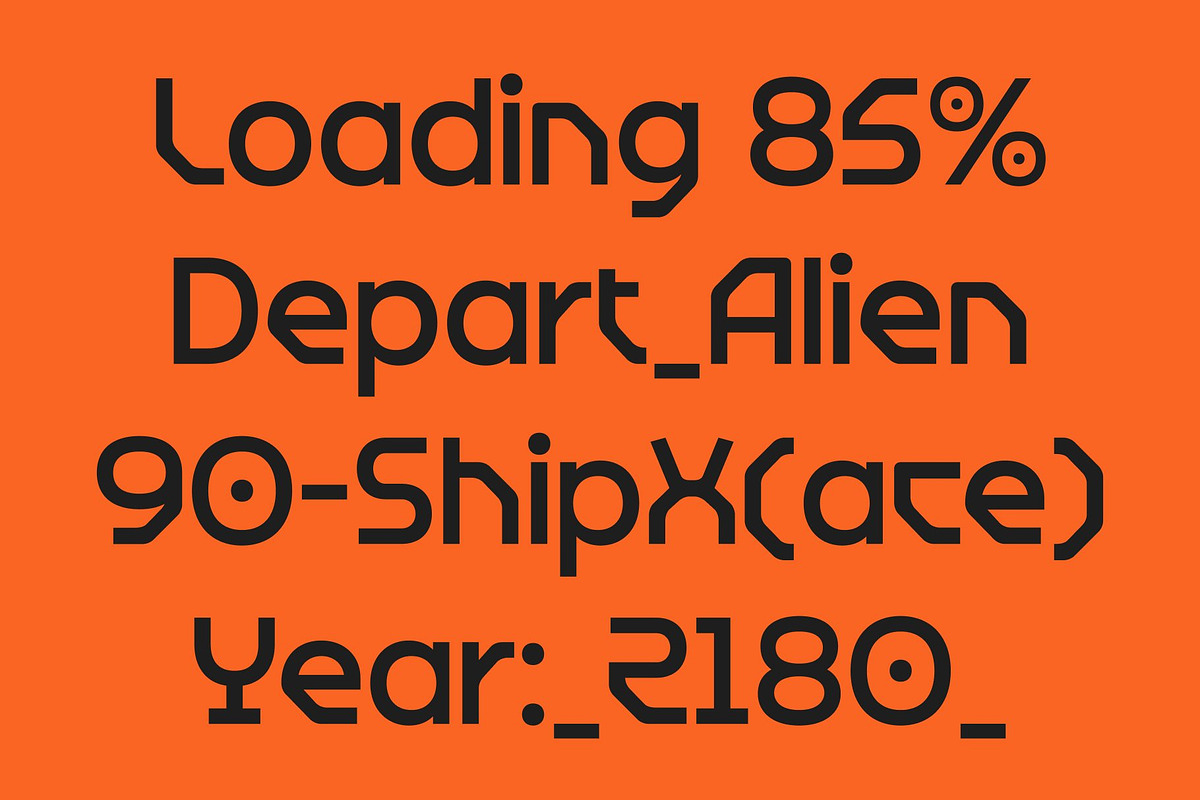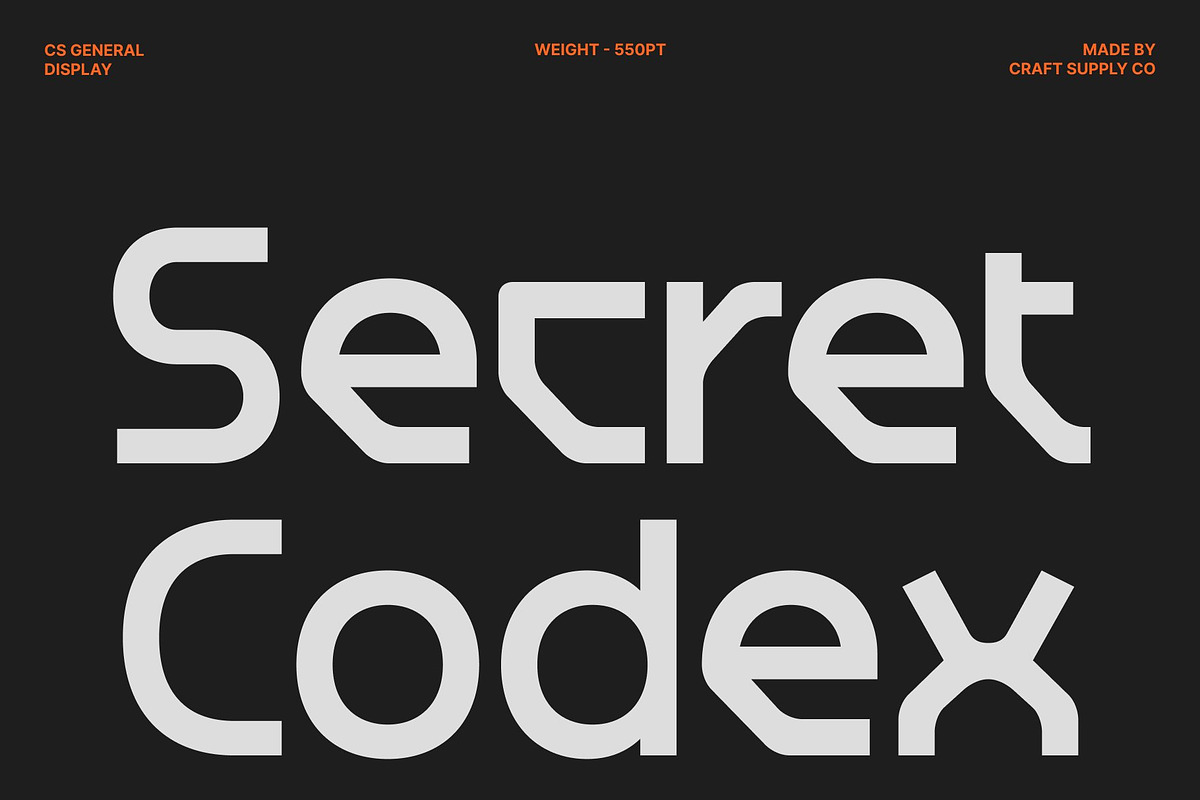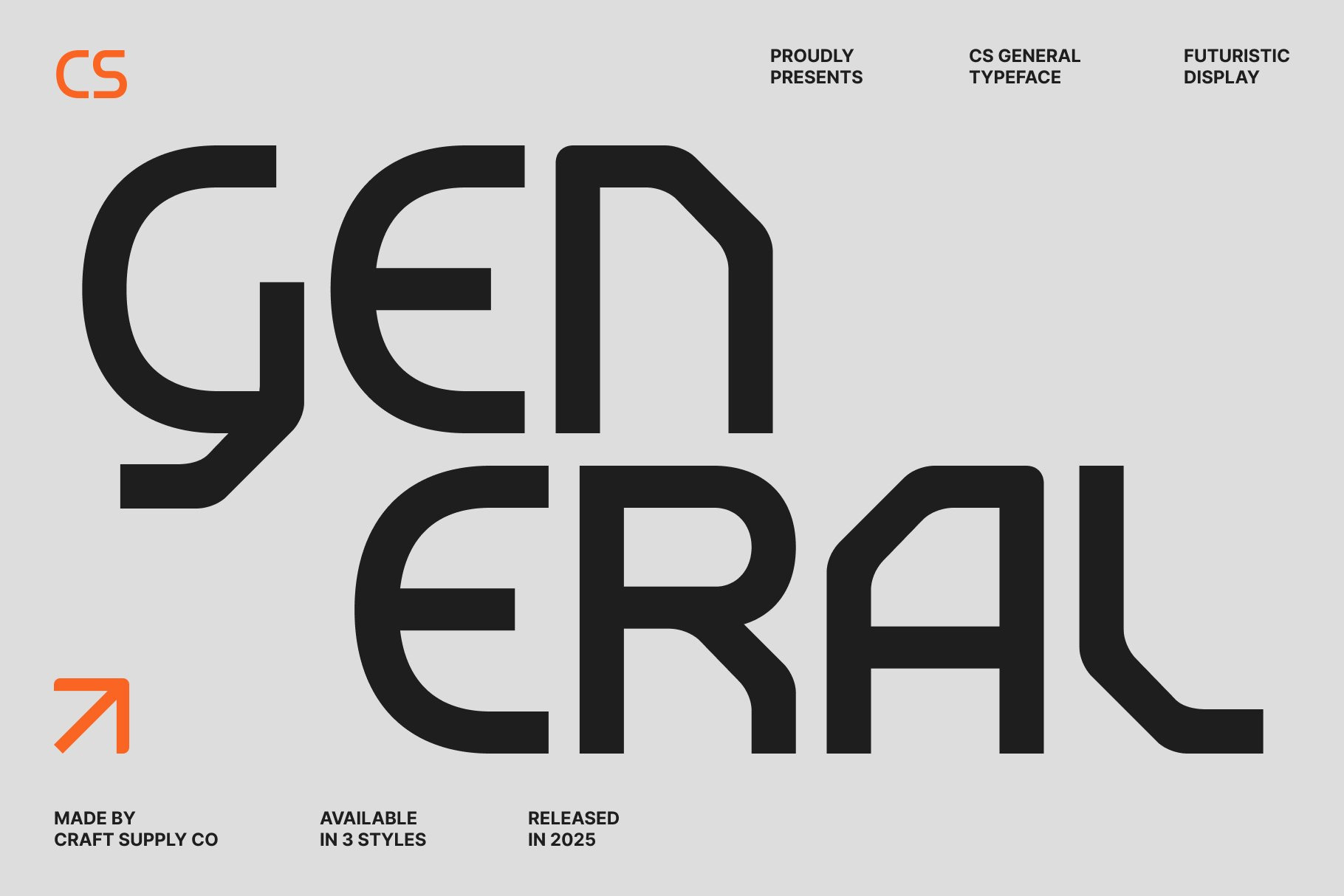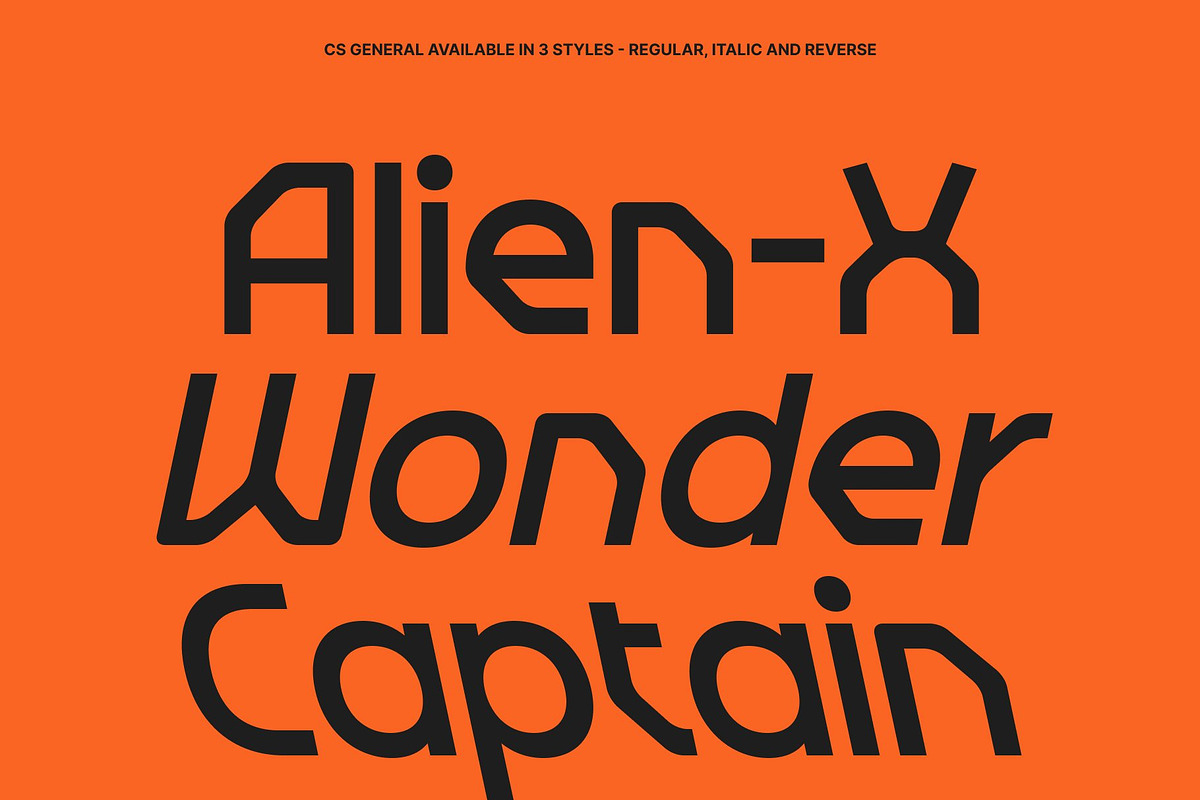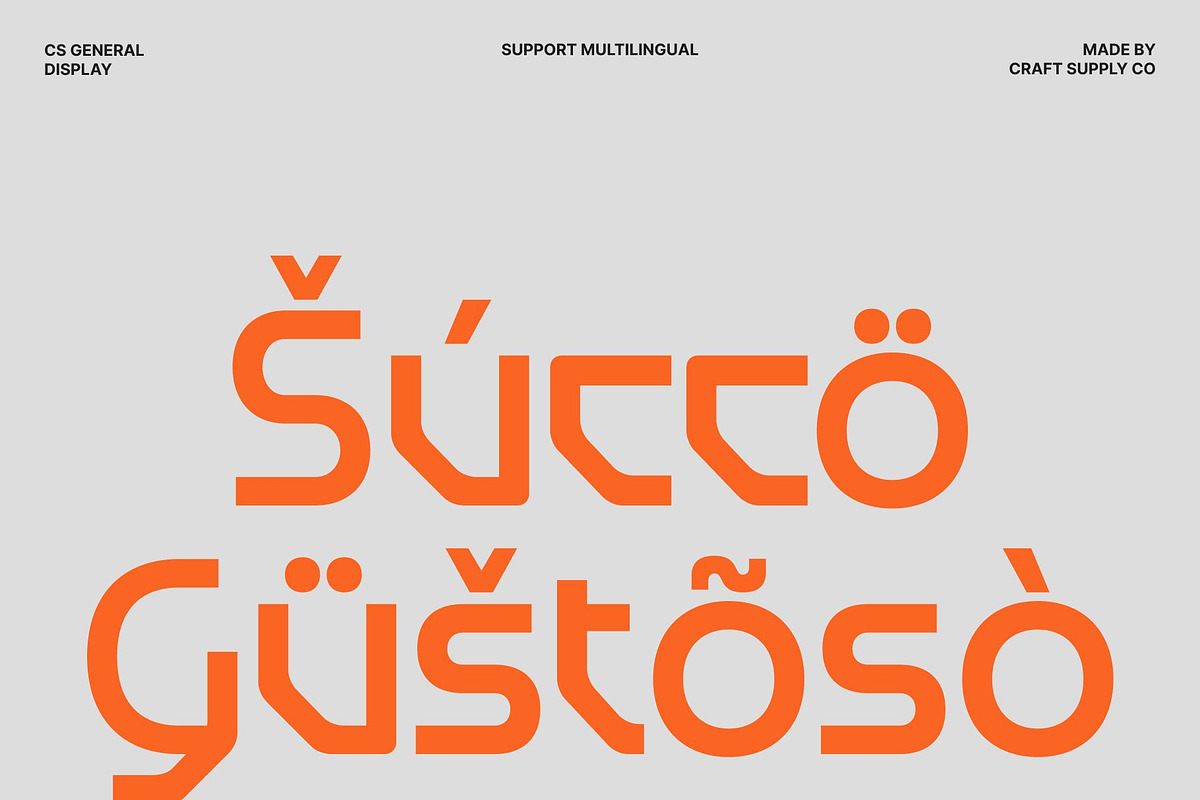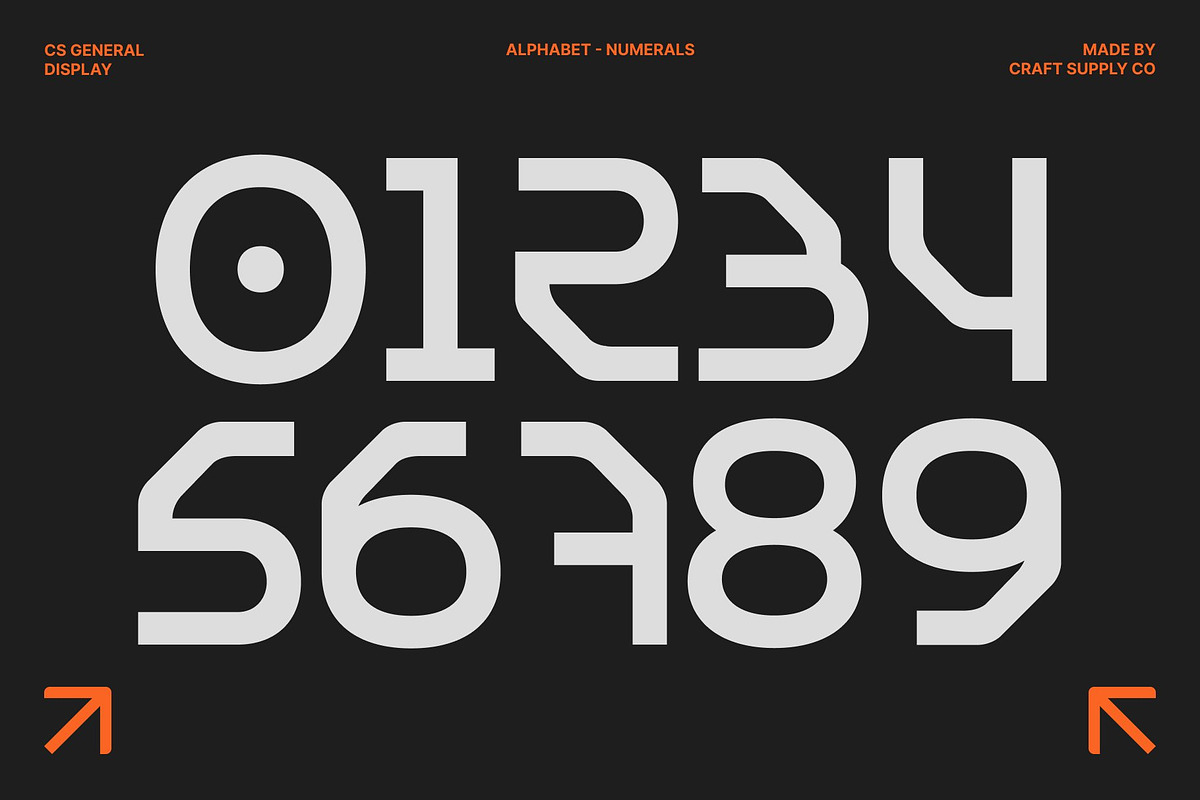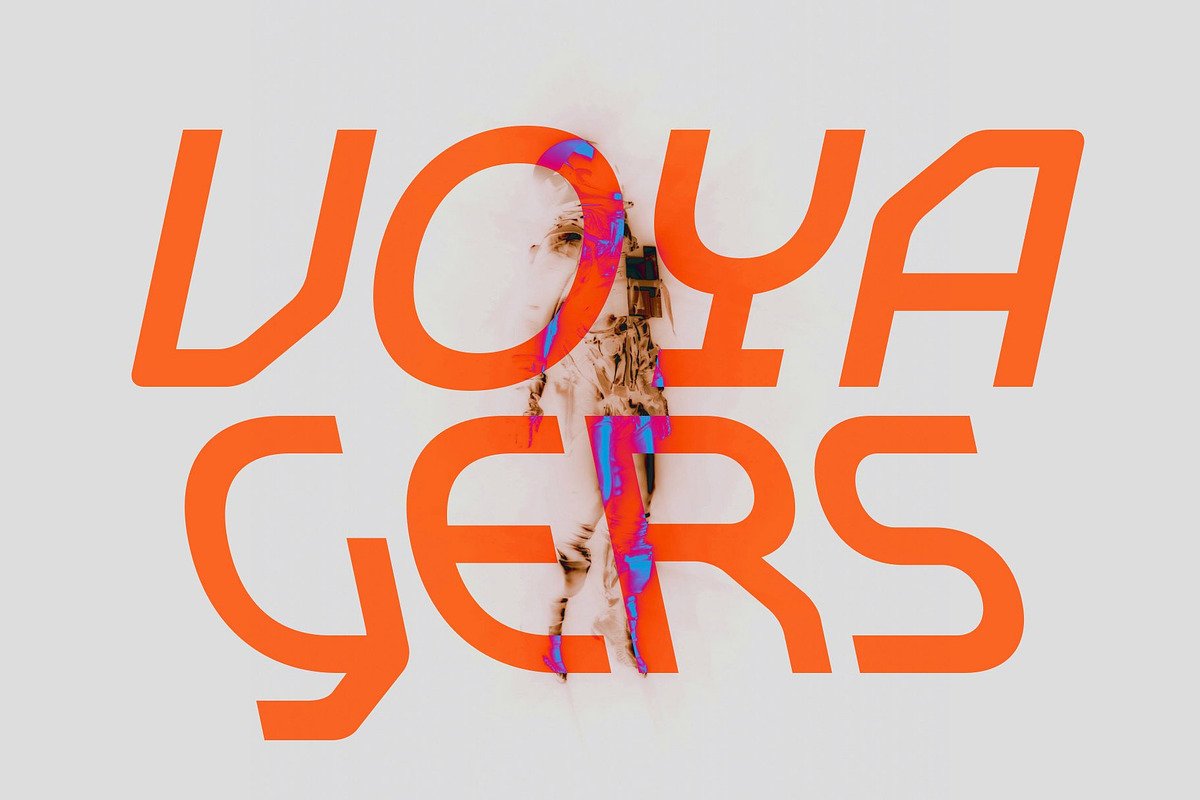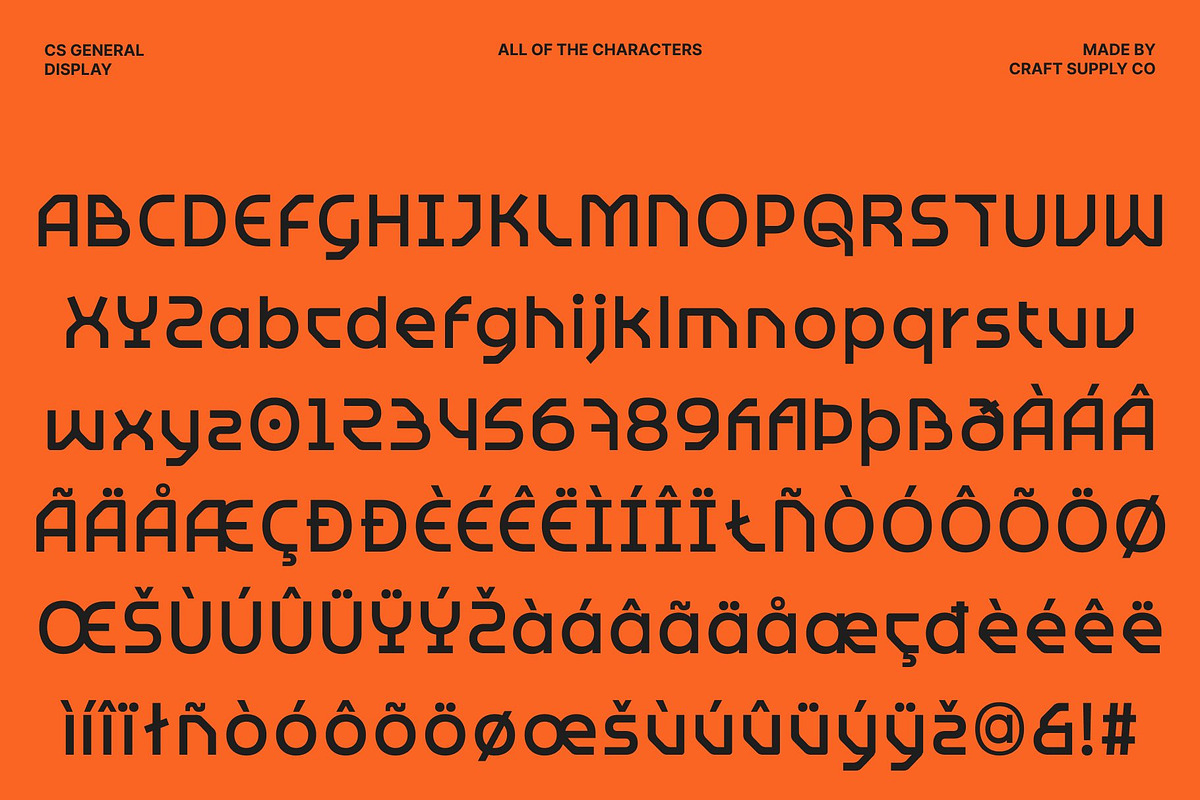
CS General – Futuristic Display Font
CS General – Futuristic Techno Font with Sharp Geometry
Futuristic Techno Display Font This is a futuristic techno display font designed to express speed, precision, and digital power. Blending techno-inspired geometry with sharp, angular edges, this font delivers a sleek and high-tech appearance that feels bold, modern, and aggressive. Its strong visual identity makes an excellent choice for designs that aim to communicate innovation, control, and futuristic energy.
Sharp Edges with Geometric Precision Every character in this font is built from clean geometric forms combined with crisp, sharp edges. This construction creates a dynamic and mechanical rhythm that enhances clarity while maintaining a striking visual impact. The angular details add intensity and structure, giving the font a commanding presence that stands out instantly in display settings.
Tech-Driven Style for Digital Themes This font thrives in technology-focused and cyber-inspired projects. Its futuristic aesthetic aligns perfectly with video game titles, cyber interfaces, sci-fi visuals, and digital environments. The font conveys a sense of advanced systems, virtual worlds, and cutting-edge technology, making it ideal for branding that requires a modern, tech-forward voice.
Versatile for Entertainment and Branding Use Designed for impact and flexibility, works exceptionally well across a wide range of creative applications. From movie titles and promotional posters to gaming logos and UI headers, the font maintains strong readability while projecting a powerful futuristic tone.
- CS General Regular
- CS General Italic
- CS General Reverse Italic